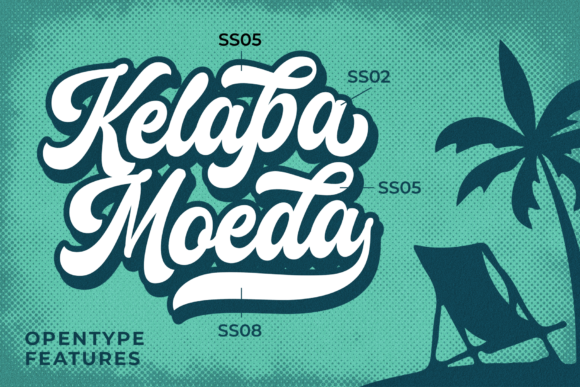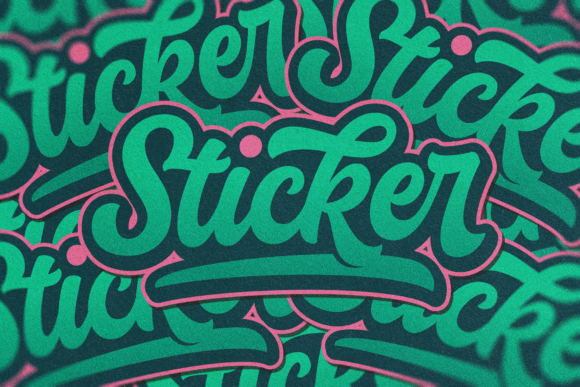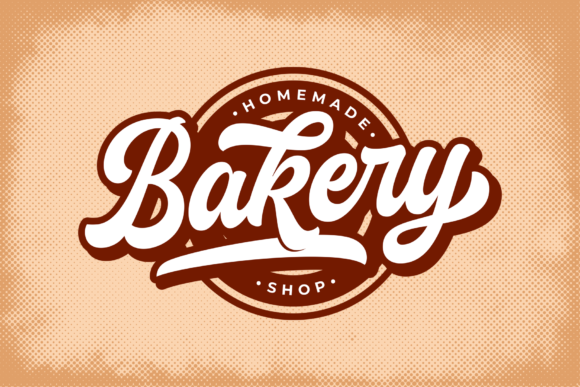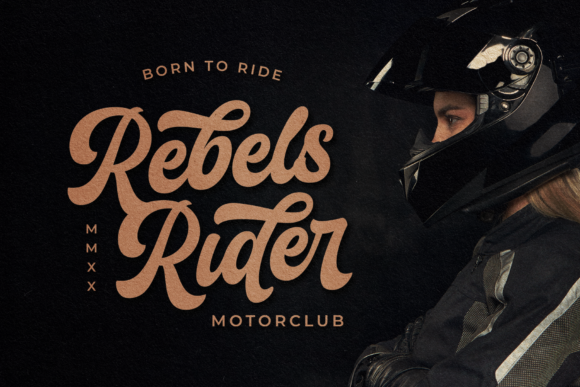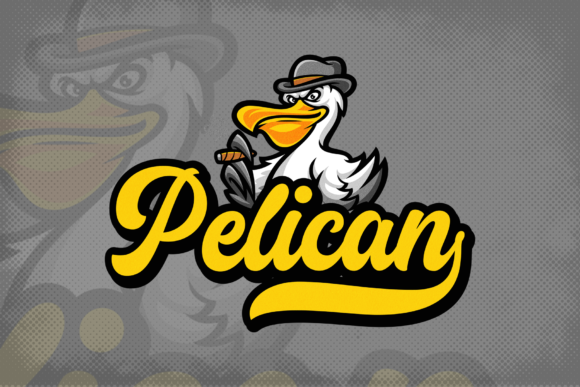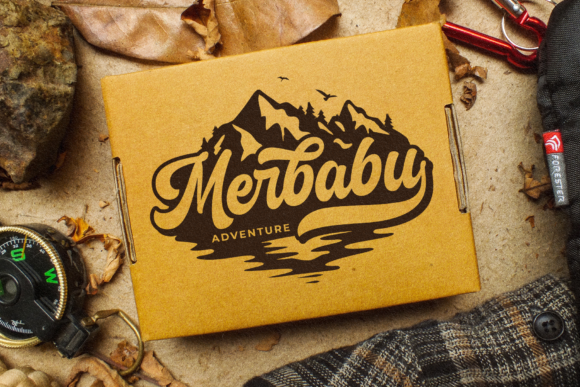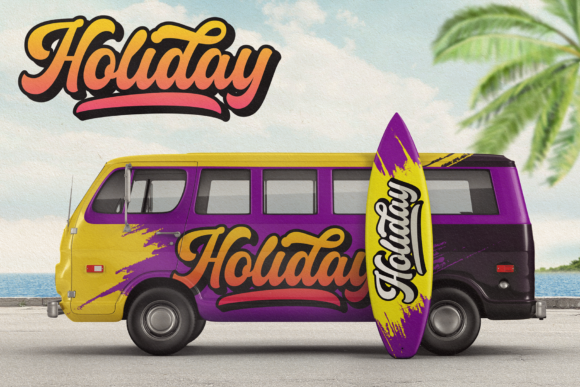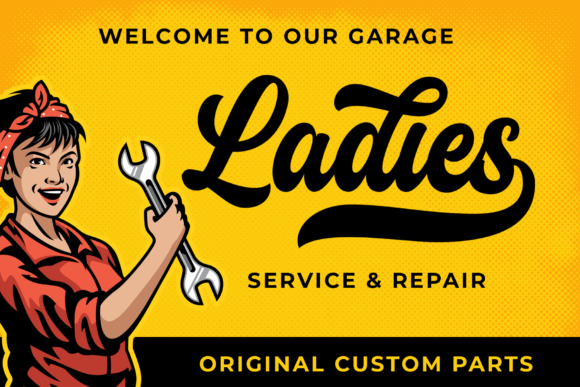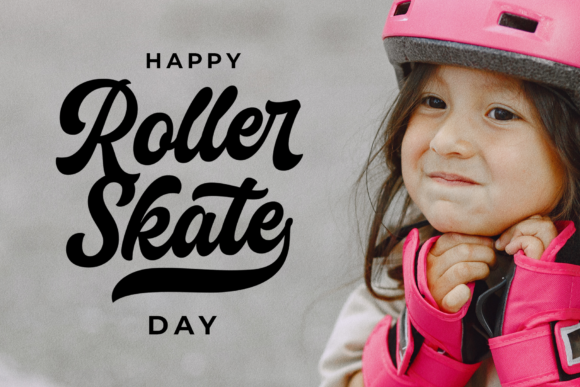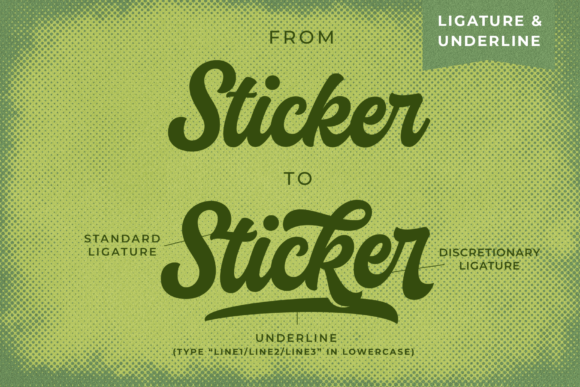
Milenia Font
About Milenia Font
Milenia is a gorgeous and bold handwritten font, crafted to give your headlines and logotype projects a retro touch. This font reads as strong, confident, and dynamic and can add tons of nostalgic character to your designs.